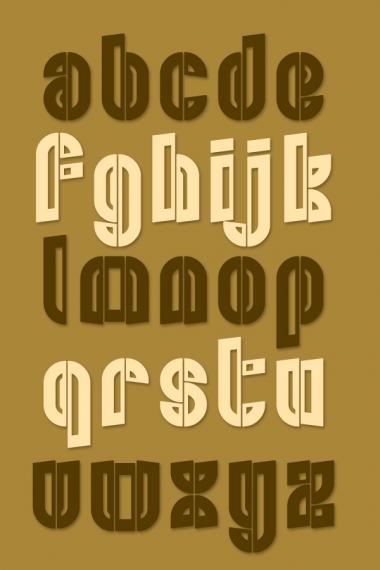
• Please zoom in for a good preview. This started off as something inspired by Sans Serious, a stencil by Jurriaan Schrofer. With its contrasting outlines, angled terminals and half counters and bowls it took a slightly different direction though. Lower case: curvier alternates, upper case: more angular.